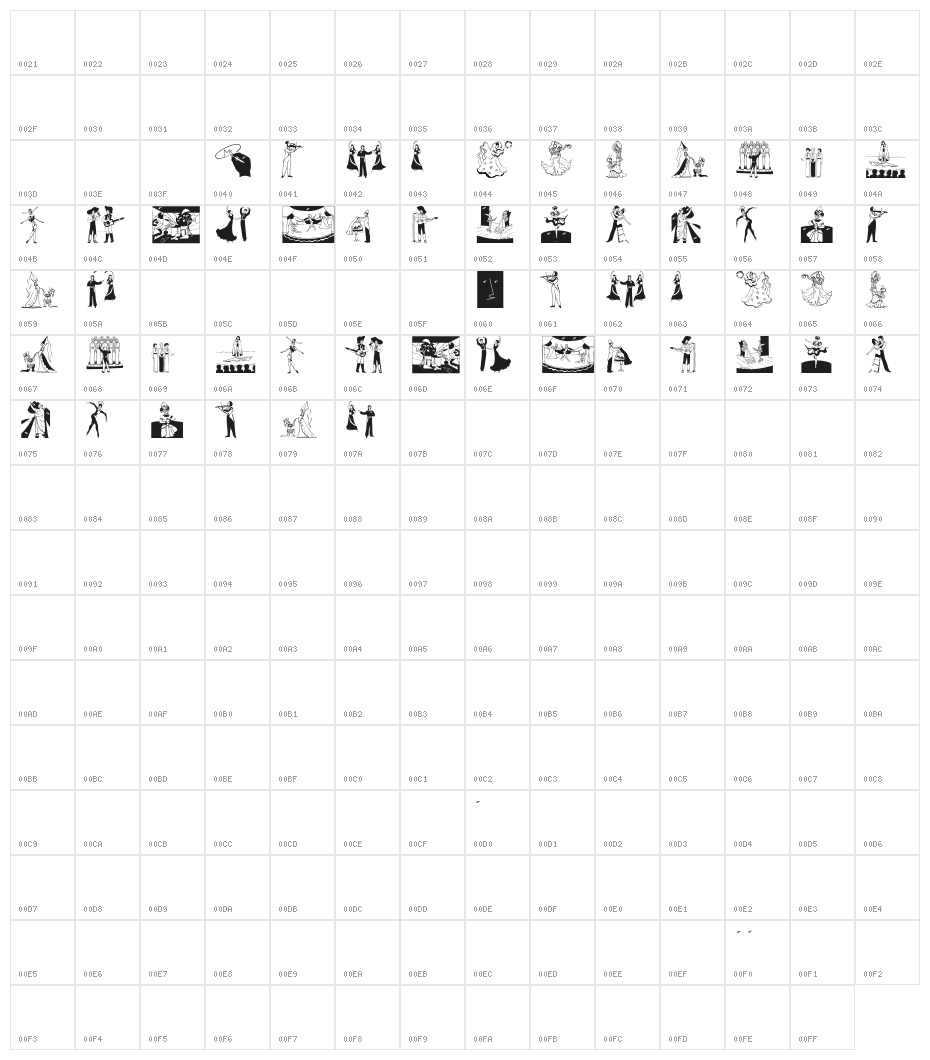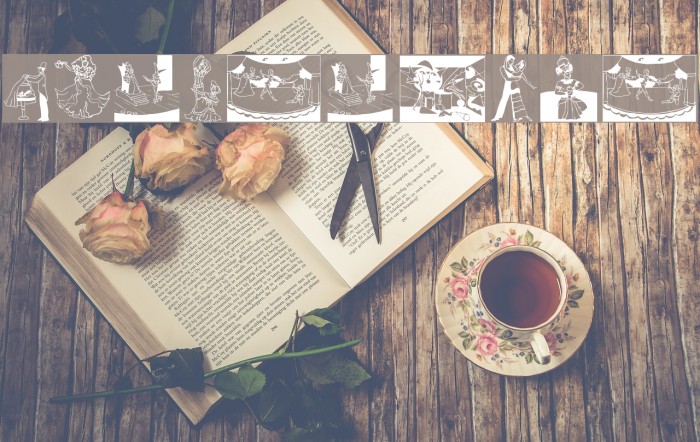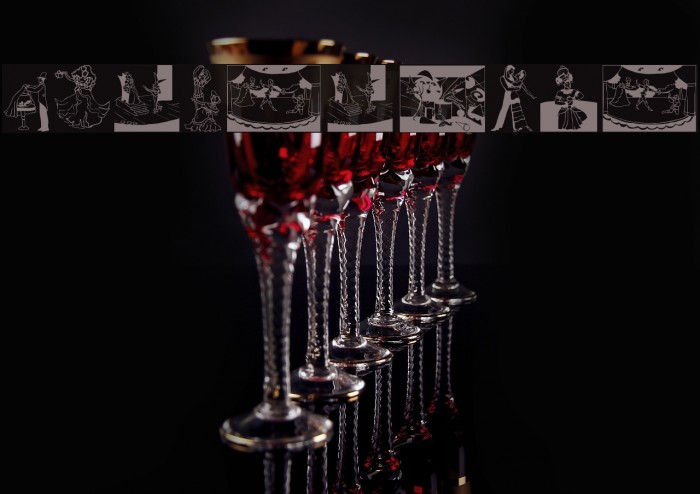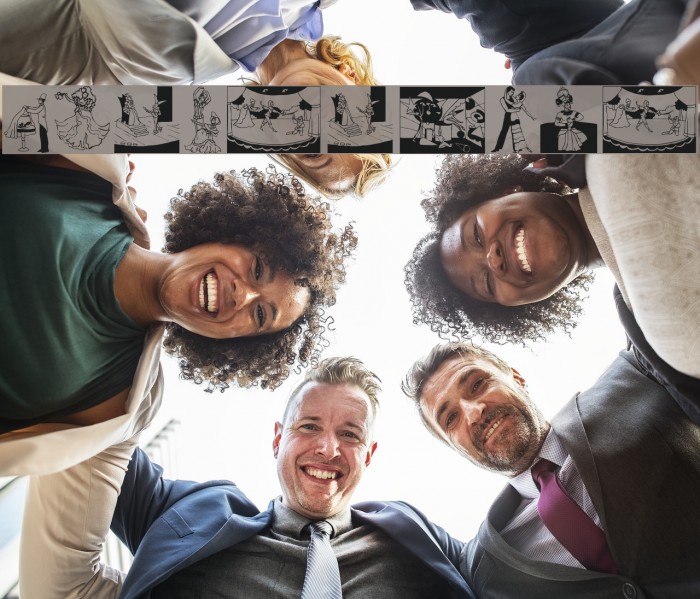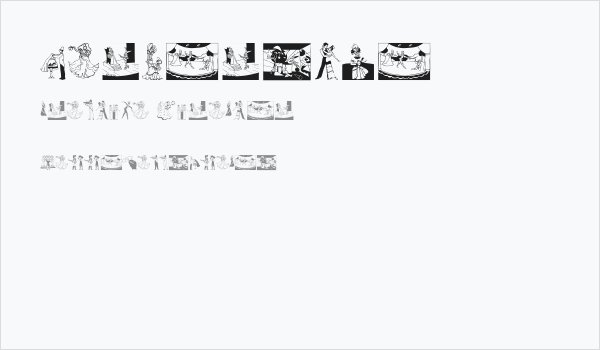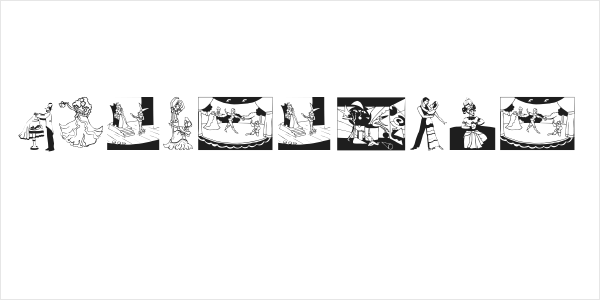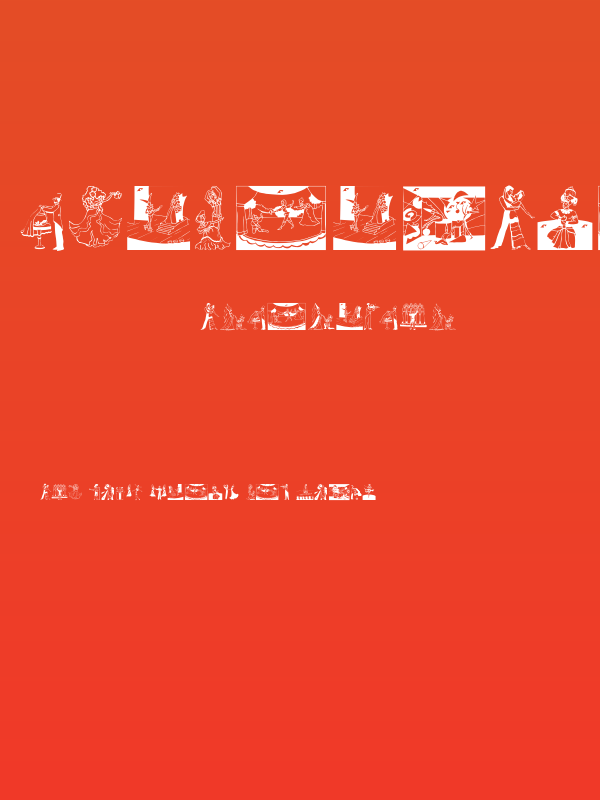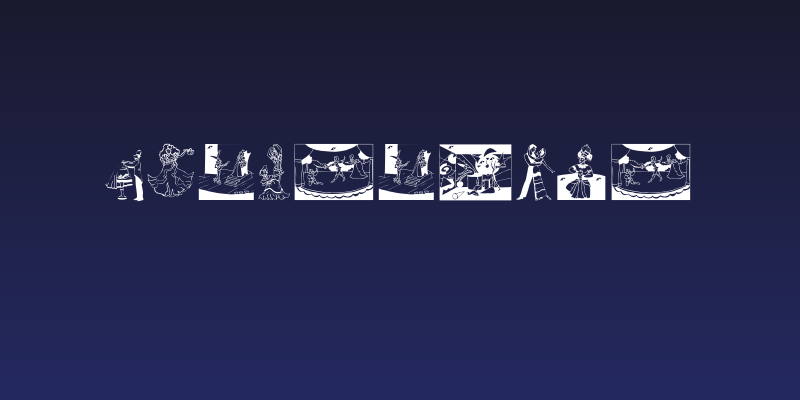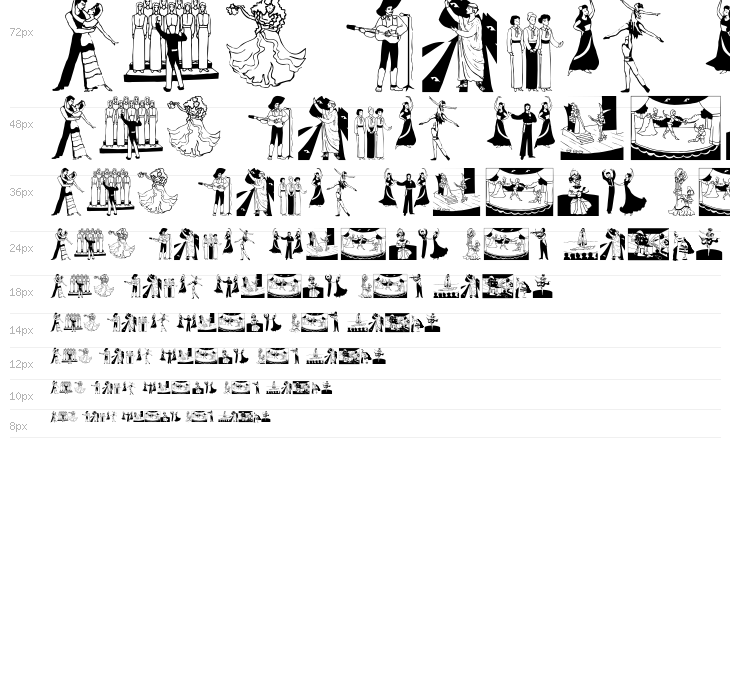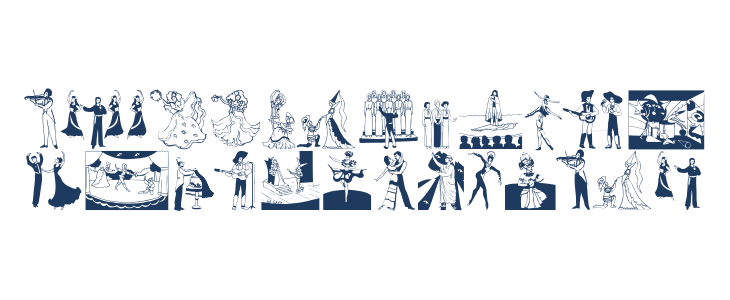
PerformTwo Font
PerformTwo Description
A highly decorative and playful font composed of detailed illustrations of dancers, performers, and theatrical scenes representing each character. The glyphs are intricate, with each letter and symbol depicted as a unique performance or dance act, making the font visually engaging and thematic.
| Overall Style | Decorative, Playful, Thematic |
| Use Case | Logos, Headlines, Posters, Invitations |
| Proposed Projects | Event posters, invitations for dance or theater events, themed branding, childrenΓ’β¬β’s books, creative headlines. |